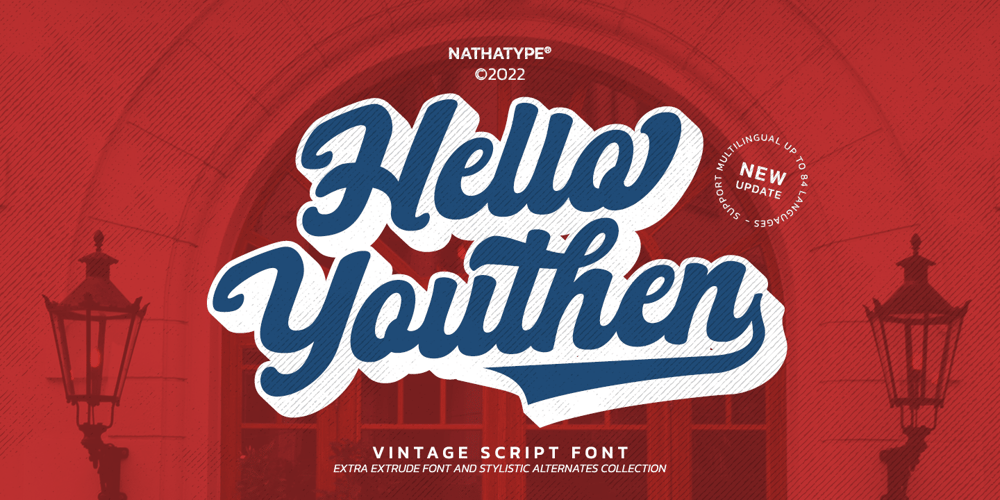
Hello Youthen
Hello Youthen font
Hello Youthen Font Family was designed by Donis Miftahudin and published by Nathatype. Hello Youthen contains 2 styles and family package options. Hello Youthen is a script font that comes with exquisite character changes, a kind of classic decorative copper script with a modern twist, designed with high detail for a fun style.Our font always includes Multilingual Support to make your branding reach a global audience. Features: Ligatures Alternates Stylistic Set PUA Encoded Numerals and Punctuation Thank you for downloading premium fonts from Natha Studio